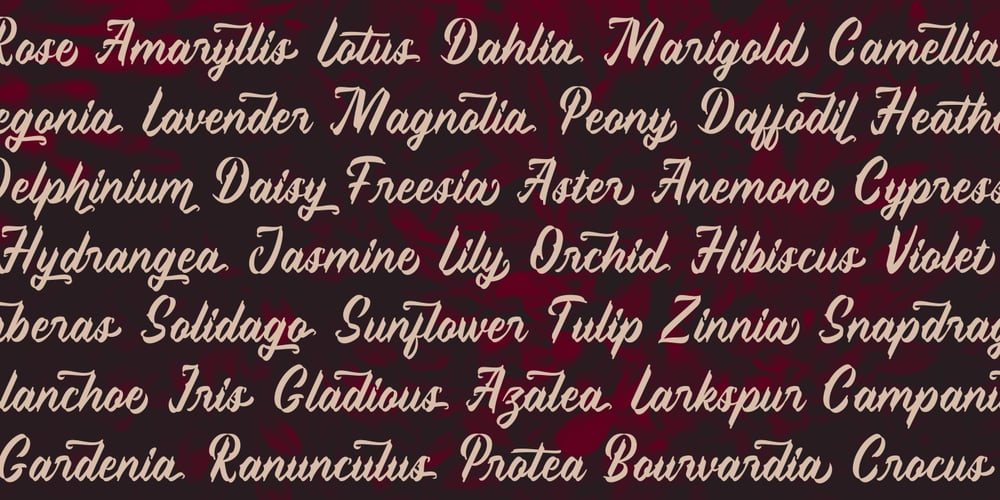
Sweet Pancake
Sweet Pancake font
Sweet Pancake Font Family was designed by Arwan Sutanto and published by Locomotype. Sweet Pancake contains 2 styles and family package options. We often see calligraphy fonts with a standard style developed from the brush pen strokes. Sweet Pancake fonts come in different calligraphy styles. The usual shape has been customized to make it look more personal and special. Sweet Pancake is available in two versions, regular and X. The second version is the development of the regular version by adding sharp corners to the stem. To be more specific, this font also includes several swash so that you can easily mix and match unique and different typographic designs. To attach a special swash to the letter end automatically, you only need to add two / three / four hyphens (the standard ligature feature must be activated). Sweet Pancake is suitable for logotype, invitation, poster and more. Available in OTF and TTF formats, also supports multi-language and PUA encoded.